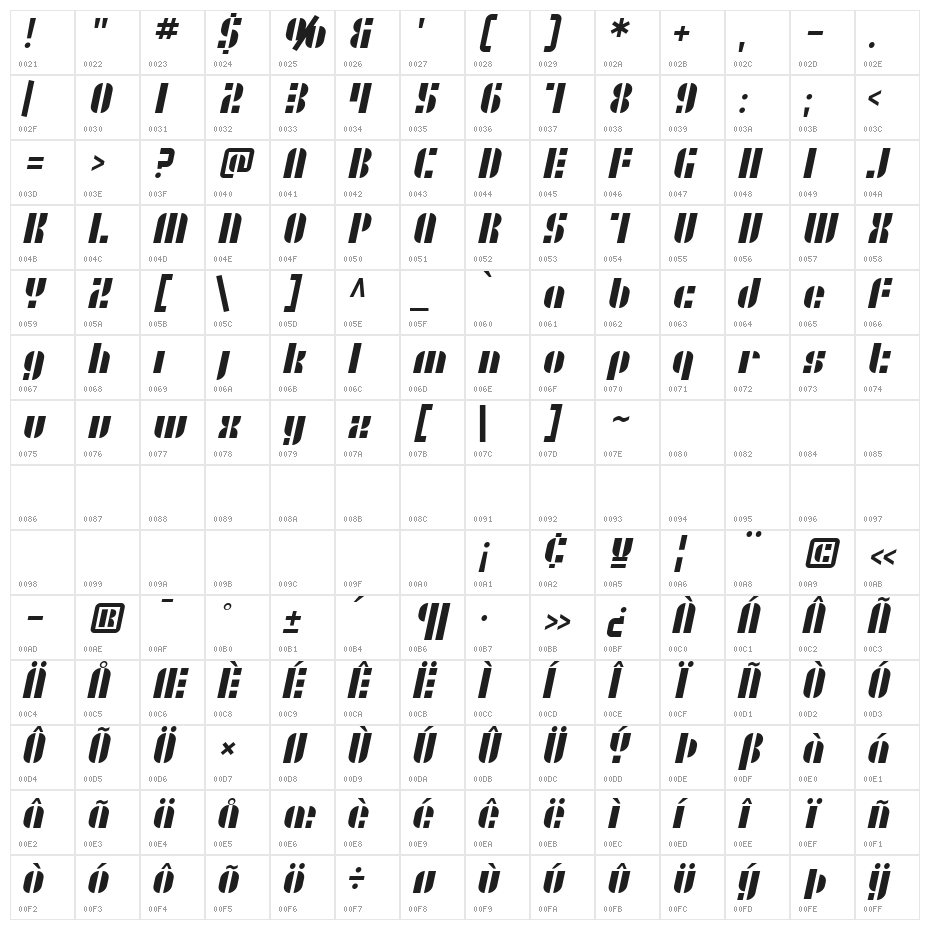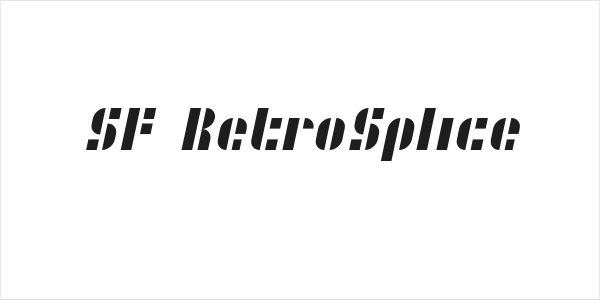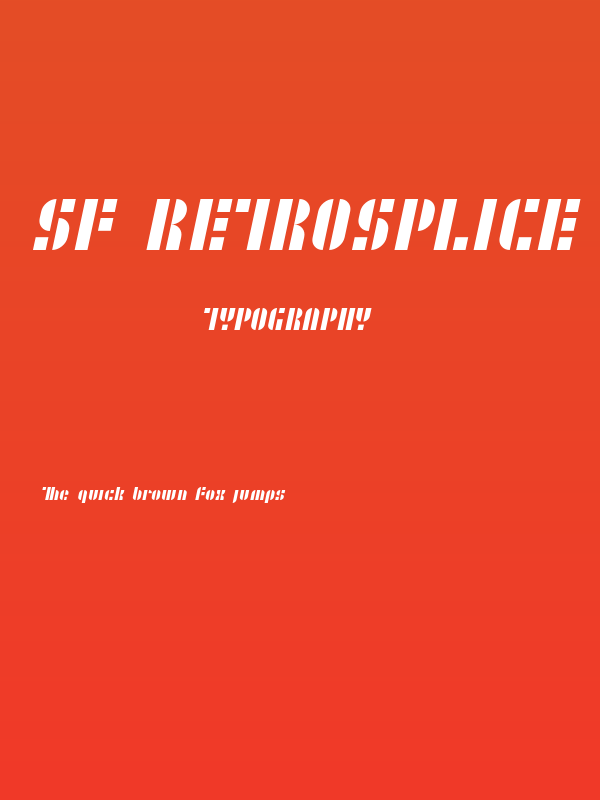
SF RetroSplice Font
SF RetroSplice Description
This font features a bold and dynamic design with a distinct retro flair. The characters are constructed with thick, angular strokes that create a sense of movement and energy. Each letter is uniquely styled with sharp edges and a slightly condensed form, giving it a compact yet impactful appearance. The uppercase and lowercase letters maintain a consistent style, while the numerals and special characters are designed to complement the overall aesthetic. The font's high contrast between thick and thin strokes enhances its visual appeal, making it suitable for eye-catching designs.
| Overall Style | Retro, Decorative |
| Proposed Projects | Ideal for vintage-themed posters, retro branding, and dynamic logo designs. |